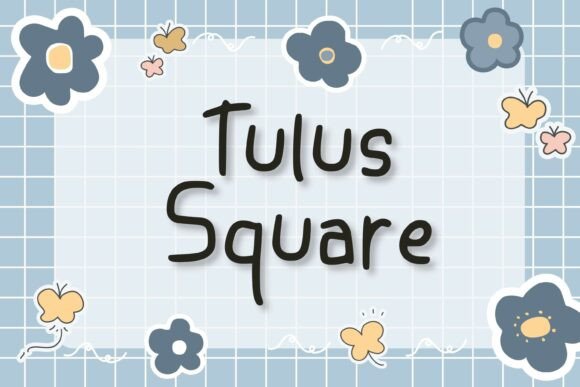
Tulus Square Font: A Web Designer’s Layout Review
I was recently staring at a hero section for a lifestyle coaching client, trying to find that elusive balance between professional authority and warm approachability. The layout was clean, the photography was authentic, but the typography felt sterile. I needed a typeface that could carry emotional weight without sacrificing modern readability. That is when I decided to test Tulus Square in a live responsive environment. As a web designer who frequently navigates the intersection of UI functionality and creative expression, I am often skeptical of handwriting fonts in digital spaces. They can be notoriously difficult to render on screens, often losing legibility or feeling too informal for conversion-focused pages. However, integrating this specific typeface into a real project revealed surprising versatility for digital brand identities.
Tulus Square distinguishes itself from typical script options by offering a structured, geometric foundation beneath its handwritten charm. It exudes cuteness while carrying a distinct coolness that prevents it from looking juvenile. In my testing across various viewport sizes, this structural integrity proved essential. Unlike loose, flowing scripts that can become illegible when scaled down for mobile headers, Tulus Square maintains its character count and spacing predictably. This makes it a genuinely practical choice for web design projects where user experience must remain paramount alongside aesthetic appeal.
Performance in Hero Sections and Digital Headers
The true test of any display font is how it performs above the fold. For a boutique online store redesign, I utilized Tulus Square for the primary H1 headline overlaying a textured background image. The font’s sleek lines provided excellent contrast against the busy visual texture, ensuring the value proposition remained instantly scannable. What stood out during the design process was the font's inherent rhythm. The letterforms are balanced enough to allow for tight tracking in all-caps settings for subheaders, yet they retain enough organic variation to feel human when used in title case for main headlines.
When designing for responsive layouts, scalability is non-negotiable. I tested Tulus Square ranging from 3rem on desktop down to 1.75rem on mobile devices. At larger sizes, the intricate details of the handwriting style shine, adding a premium feel to the landing page. Crucially, as the viewport shrank, the font did not collapse into an unreadable mess. The square-ish architecture of the glyphs ensures that even at smaller header sizes, the text remains distinct. This reliability reduces the need for excessive CSS overrides or media query adjustments, streamlining the development workflow for custom websites and template designs.
Strategic Font Pairing for Interface Clarity
A decorative typeface like Tulus Square cannot exist in a vacuum; it requires a supportive partner to maintain interface clarity. During a blog redesign project, I paired Tulus Square with a neutral, geometric sans serif font for body copy and navigation elements. This combination created a sophisticated editorial hierarchy. The handwriting font acted as a visual anchor for section titles and pull quotes, guiding the user’s eye through long-form content without causing fatigue. The contrast between the organic warmth of Tulus Square and the rigid stability of the sans serif body text established a brand identity that felt both curated and accessible.
For e-commerce product pages, I found this pairing particularly effective for highlighting unique selling points. Using Tulus Square for short, benefit-driven phrases like "Hand-poured Soy" or "Ethically Sourced" drew attention to key details without disrupting the shopping flow. It is important to note that this font works best as an accent rather than a workhorse. Attempting to use it for dense paragraphs or technical specifications would degrade readability and harm accessibility scores. Instead, reserve it for moments where you want to inject personality and break up the monotony of standard web typography.
Readability and Accessibility Considerations
As web designers, we must prioritize inclusive design. While Tulus Square is undeniably stylish, it requires mindful implementation to meet accessibility standards. In my UX testing, I found that the font performs exceptionally well on light backgrounds with dark text, maintaining high contrast ratios necessary for WCAG compliance. However, when reversed to white text on dark backgrounds, the thinner strokes of the handwriting style can sometimes vibrate or disappear depending on screen calibration. To mitigate this, I recommend applying a slight font-weight adjustment or text-shadow in CSS when using light-on-dark configurations to preserve stroke definition.
Furthermore, consider the cognitive load of your users. Handwriting fonts mimic human speech patterns, which can be engaging but also slower to parse than standard typefaces. I advise limiting Tulus Square to six words or fewer per line in digital contexts. This constraint forces concise copywriting and ensures that the decorative element enhances rather than hinders communication. For call-to-action buttons, proceed with caution. While the font looks beautiful in static mockups, interactive states require instant recognition. I generally prefer reserving Tulus Square for button labels only if the surrounding context makes the action unmistakably clear, otherwise sticking to a highly legible sans serif for primary conversions is the safer UX choice.
Technical Implementation and Licensing for Digital Assets
Ultimately, Tulus Square succeeds in the digital space because it respects the constraints of the medium while delivering genuine character. It bridges the gap between the tactile warmth of traditional stationery and the precision required for modern web design. Whether you are crafting a portfolio site, a coaching landing page, or a boutique shop, this typeface offers a reliable way to infuse digital interfaces with human connection. By treating it as a strategic design asset rather than mere decoration, you can elevate your web projects from functional to memorable, creating online experiences that resonate deeply with visitors.